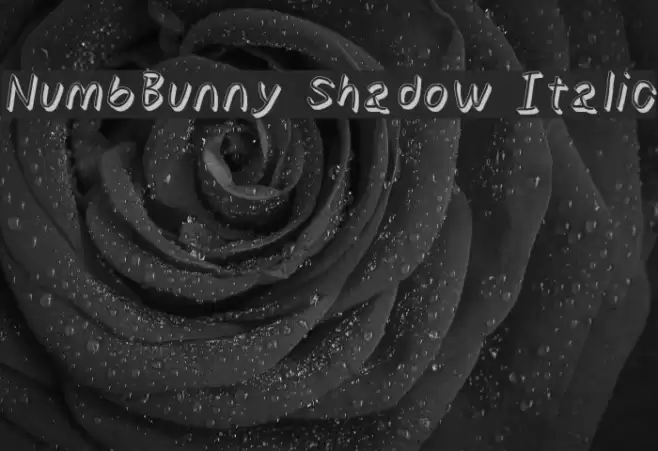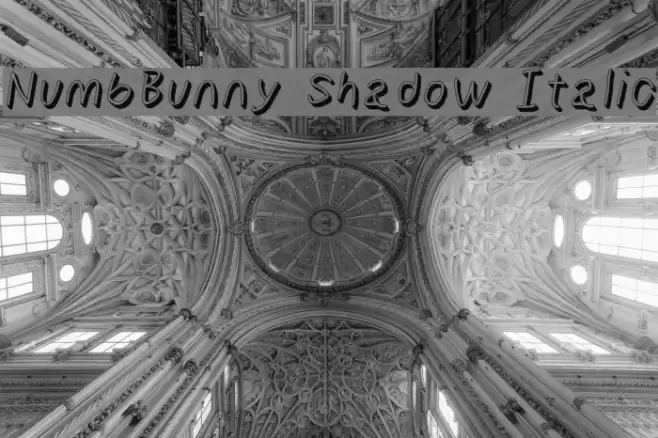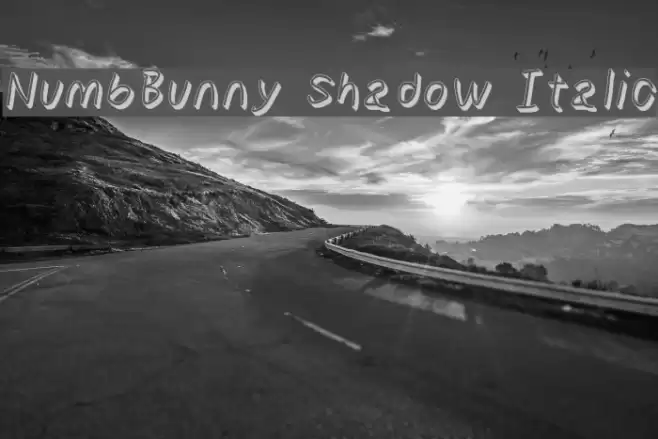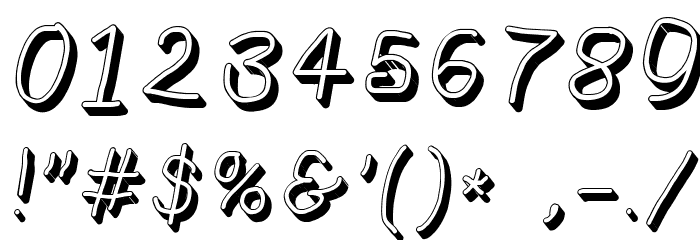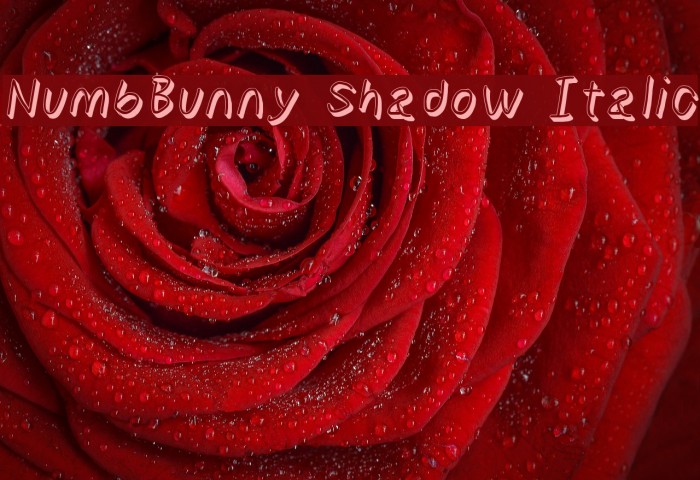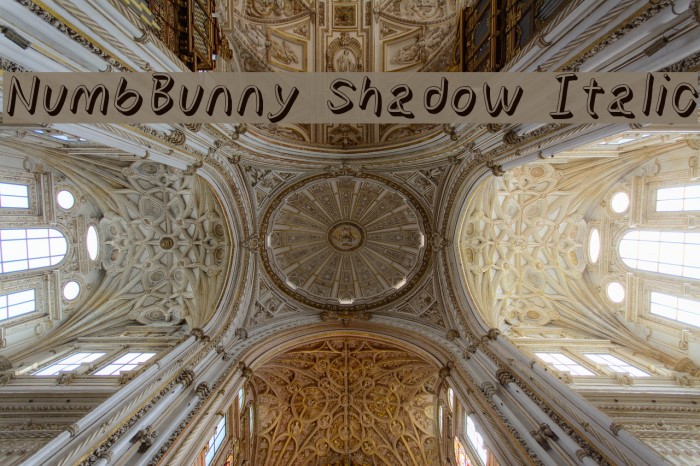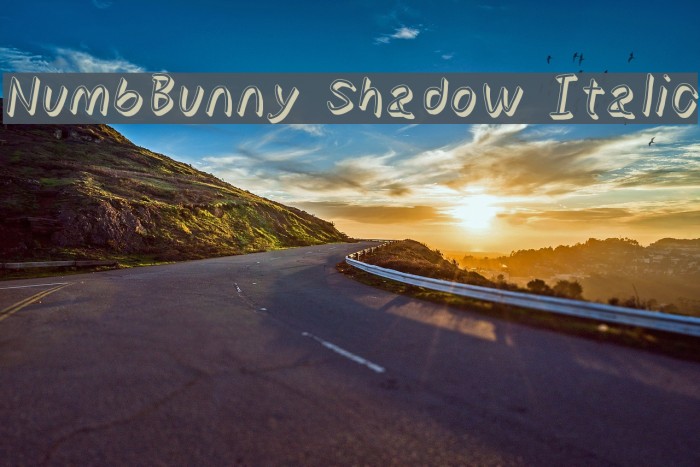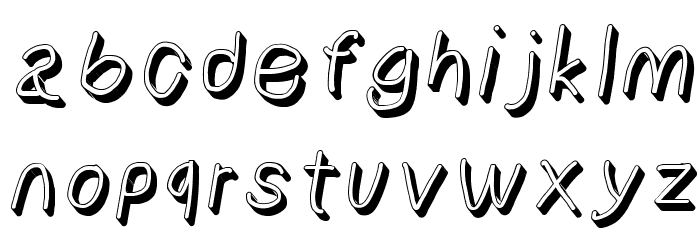
NumbBunny Shadow Italic Font
NumbBunny Shadow Italic Description
This playful and dynamic font features a bold, shadowed style that gives each character a three-dimensional effect. The letters are slightly italicized, adding a sense of movement and energy. The strokes are thick and consistent, with rounded edges that soften the overall appearance. The shadow effect is pronounced, creating a striking contrast that enhances readability. This font is ideal for projects that require a fun and engaging look, such as children's books, playful branding, or eye-catching headlines. The characters are well-spaced, ensuring clarity and legibility even at smaller sizes.
A bold, shadowed, and slightly italicized font with a playful and dynamic style from Handwritten fonts.
- Proposed Projects: Children's books, playful branding, eye-catching headlines, posters, and creative designs.
- Overall Style: Playful, Dynamic, Modern